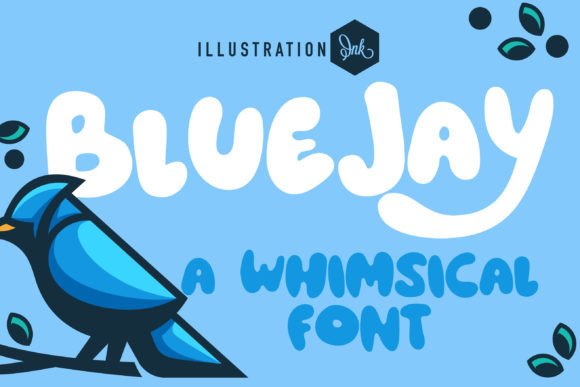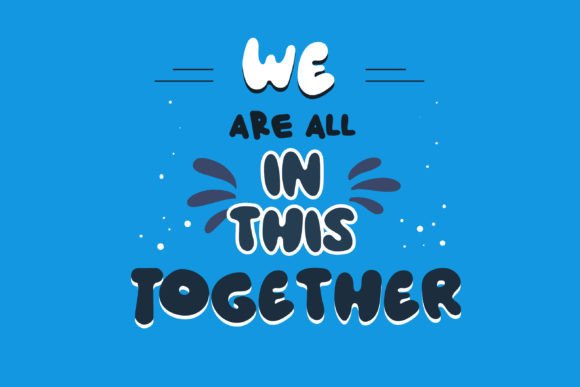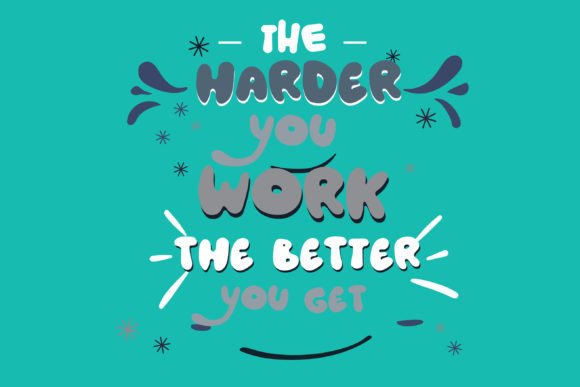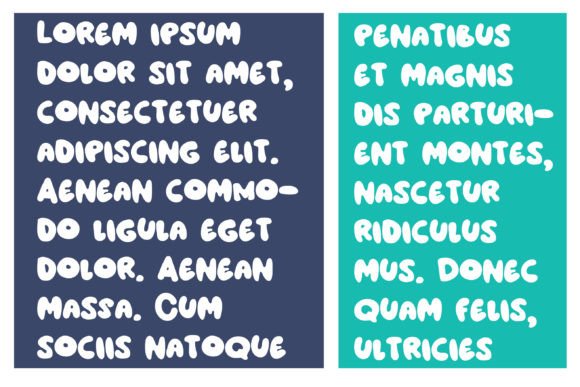
Bluejay Font: A Cheerful Display Font for Cute DIY & Craft Projects!
About the Bluejay Font
Introducing the Bluejay Font, a beautifully crafted typeface designed to elevate your creative projects. Bluejay is a friendly and chubby font. Its letters are round and smooth, like little bubbles. It’s easy to read and looks cheerful on any project.
Bluejay’s cheerful, rounded forms make it ideal for headlines, short text blocks on packaging, and children’s projects. Its friendly nature lends itself well to branding for businesses focused on playfulness and approachability, such as toy stores or ice cream parlors. However, its informal character limits its use in body text or situations requiring high readability over extended lengths. Avoid using it for UI elements or lengthy documents.
Pairing Bluejay effectively requires considering its bubbly personality. A clean sans-serif like Open Sans would provide a solid, legible contrast for supporting text, while a script font with a similar level of friendliness, like Pacifico, could add a touch of whimsy in secondary applications. Alternatively, a more geometric sans-serif could create a dynamic tension, highlighting Bluejay’s rounded forms.
In essence, Bluejay’s core personality is friendly and approachable, best suited for projects that prioritize a lighthearted and optimistic tone.